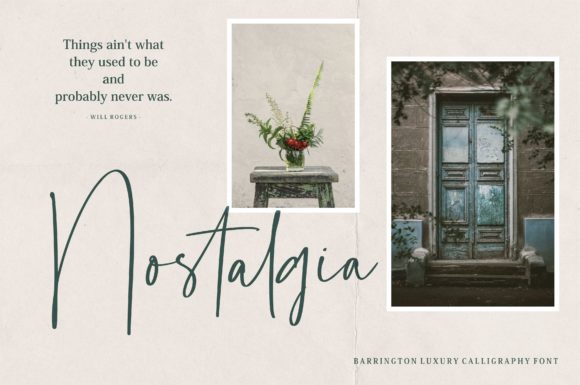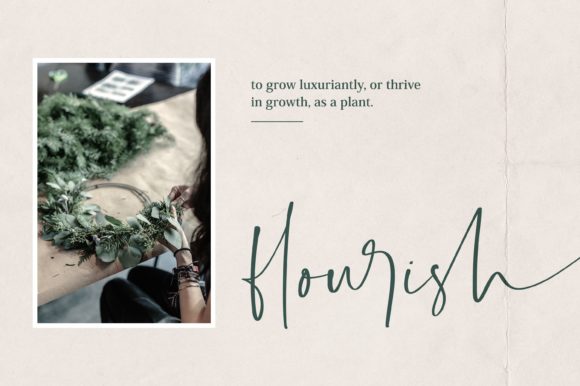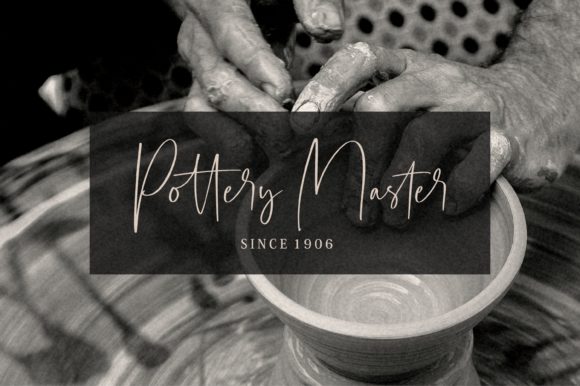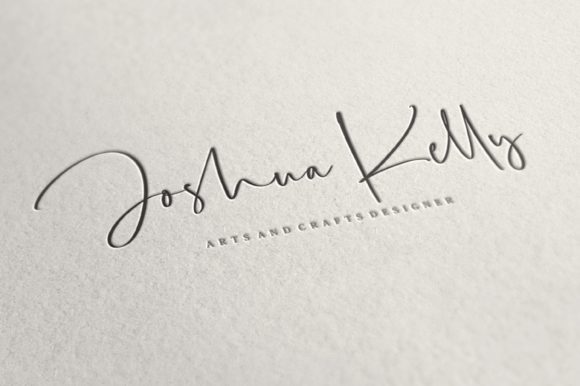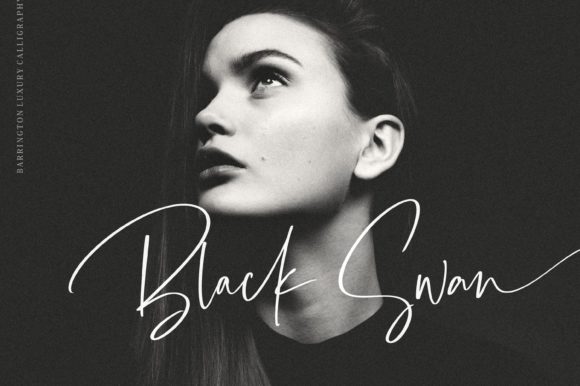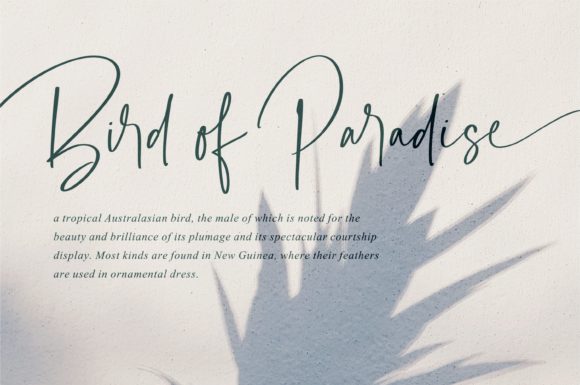
Barrington Font: Elevate Your Designs with a Light and Sophisticated Script
In the world of typography, fonts play a crucial role in conveying the tone and personality of a design. For crafters and designers looking to add a touch of elegance and sophistication to their projects, the Barrington font is an excellent choice. With its light and refined appearance, this script font is perfect for creating beautiful and eye-catching designs that exude a sense of luxury and refinement.
The Unique Charm of Barrington Font
Barrington is a light and sophisticated script with an authentic twist. Its unique charm lies in its ability to blend classic elegance with a modern, laid-back feel. The font’s light weight and delicate strokes give it a refined appearance, making it perfect for designs that require a touch of sophistication. Whether you’re working on a branding project, creating wedding stationery, or designing a logo, Barrington font is sure to impress.
Key Features of Barrington Font
- Light and Sophisticated: Barrington font features delicate strokes and a refined appearance, making it perfect for designs that require a touch of elegance.
- Authentic Twist: The font’s unique charm lies in its ability to blend classic elegance with a modern, laid-back feel.
- Script Style: Barrington font is a script font, making it perfect for creating beautiful and flowing text.
- Highly Versatile: The font is suitable for a wide range of design projects, from branding and advertising to wedding stationery and crafting.
Use Cases for Barrington Font
Barrington font is highly versatile and can be used in a variety of design projects. Here are some use cases where the font excels:
- Branding and Logo Design: The font’s sophisticated and elegant appearance makes it perfect for creating high-end brand identities and logos.
- Wedding Stationery: Barrington font is a popular choice for wedding stationery, including invitations, save-the-date cards, and thank-you notes.
- Advertising and Marketing: The font’s refined appearance makes it suitable for use in advertising and marketing materials, such as brochures, flyers, and posters.
- Crafting and Scrapbooking: Barrington font is a great choice for crafters and scrapbookers looking to add a touch of elegance to their projects.
Tips for Using Barrington Font
To get the most out of Barrington font, here are some tips to keep in mind:
- Pair with Bold Fonts: Pair Barrington font with bold fonts to create a striking contrast and add visual interest to your design.
- Use in Moderation: While Barrington font is elegant and sophisticated, it can be overwhelming if used excessively. Use it in moderation to create a balanced design.
- Experiment with Colors: The font looks great in a variety of colors, so don’t be afraid to experiment and find the perfect hue for your design.
In conclusion, Barrington font is a beautiful and sophisticated script font that is perfect for designers and crafters looking to add a touch of elegance to their projects. With its light and refined appearance, authentic twist, and high versatility, this font is sure to become a staple in your design toolkit. Whether you’re working on a branding project, creating wedding stationery, or designing a logo, Barrington font is an excellent choice.